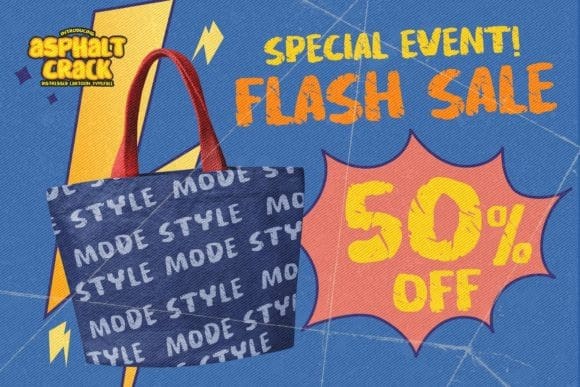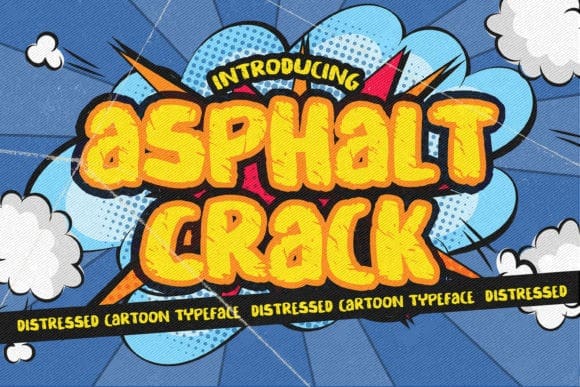
Asphalt Crack Font
Asphalt Crack Font is a distressed cartoon display font inspired by modern logos and brands with strong characteristics. It is suitable for posters, children’s cards, and it is guaranteed to add a sweet touch to packaging, branding, logotypes, and more.
Asphalt Crack is a font with strong and challenging nuances, suitable for typography, posters, magazines, brochures, packaging, websites, and much more. It will make your designs more modern and professional.